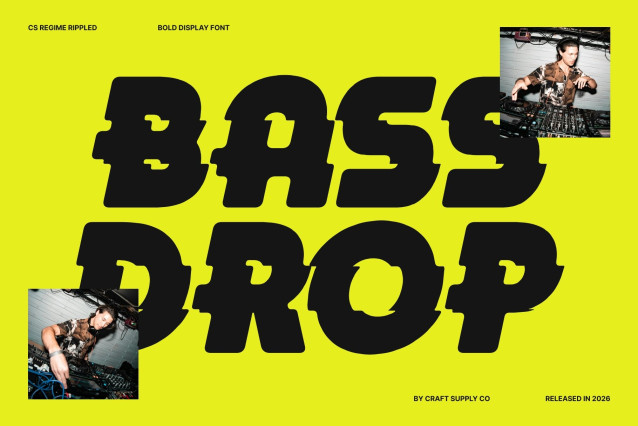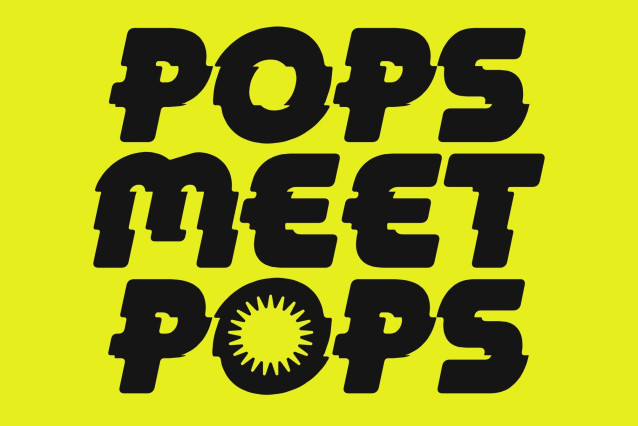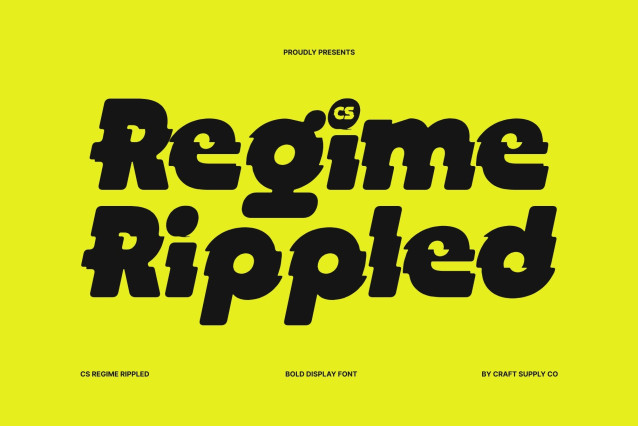
CS Regime Rippled – Bold Display Font: Where Bauhaus Geometry Meets Liquid Wave Motion
Geometric Bauhaus Forms with Modern Retro Energy
This is a bold display font inspired by classic Bauhaus principles, blending retro geometric character with contemporary design sensibility. Its modular construction and strong geometric forms create a visually engaging appearance filled with balance, structure, and artistic modernism. Every character feels bold and expressive, making the font perfect for standout visual compositions and impactful creative projects.
Rippled Effect with Fluid Wave Distortion
This font creates the illusion of typography reflected on water or distorted by flowing waves. The liquid inspired detailing introduces rhythmic motion, surreal visual energy, and organic fluidity, transforming the rigid geometric structure into a dynamic and immersive visual experience. This wave like styling adds movement while preserving the font’s bold readability and graphic strength.